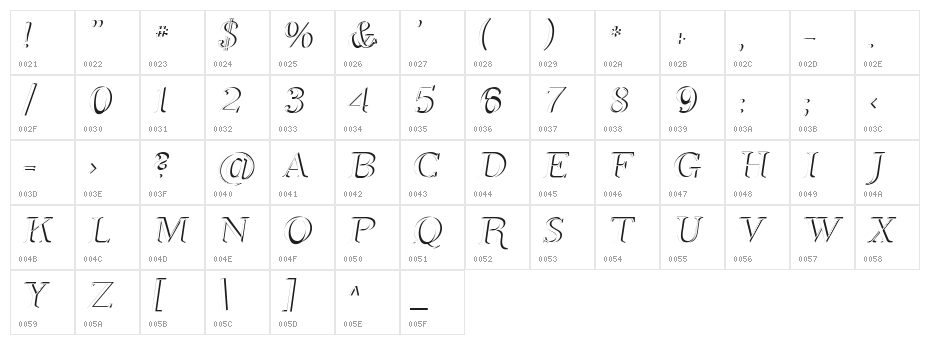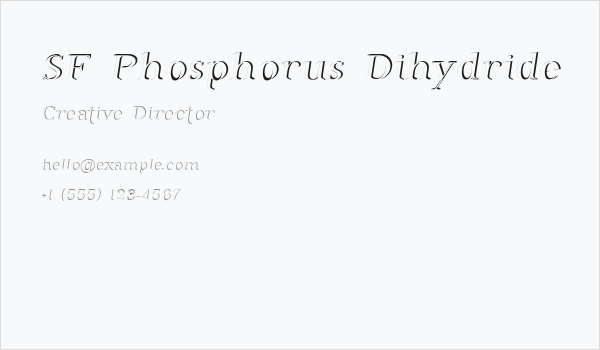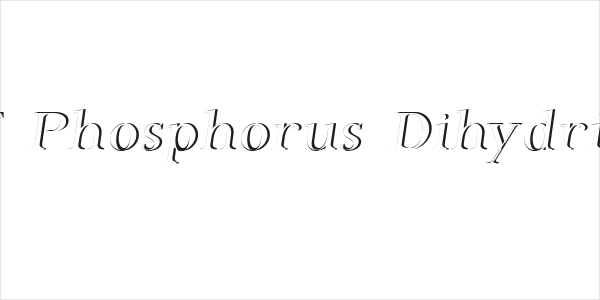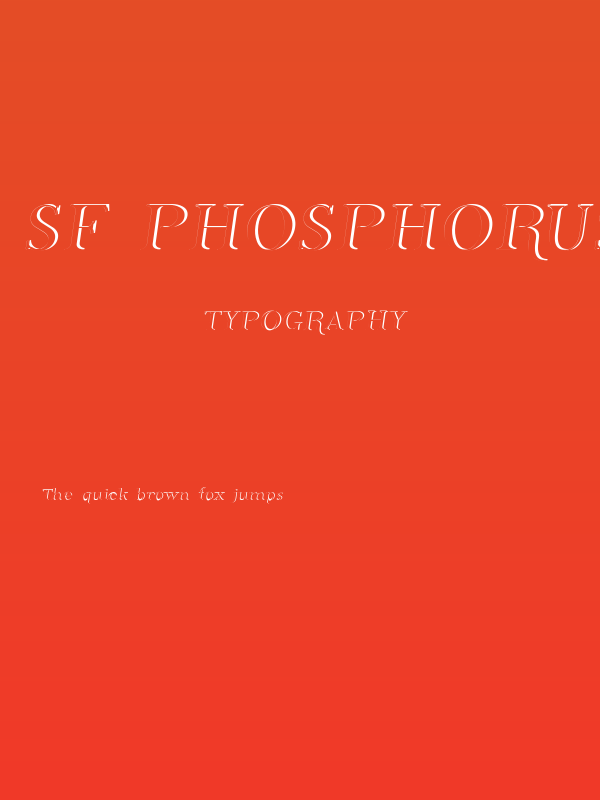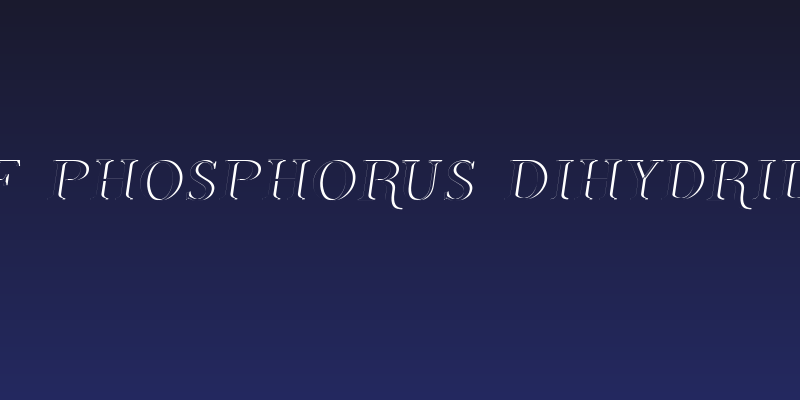
SF Phosphorus Dihydride Font
SF Phosphorus Dihydride Description
This elegant serif font features a classic and sophisticated style with a slight italic slant, giving it a refined and graceful appearance. The characters are well-proportioned with a medium contrast between thick and thin strokes, enhancing readability while maintaining a stylish look. The uppercase letters exhibit a traditional formality, while the lowercase letters are slightly more playful yet still maintain a sense of elegance. The numerals are clear and distinct, making them suitable for both formal and decorative purposes. Special characters are thoughtfully designed, complementing the overall aesthetic of the font. This font is versatile, suitable for a range of applications from editorial design to branding.